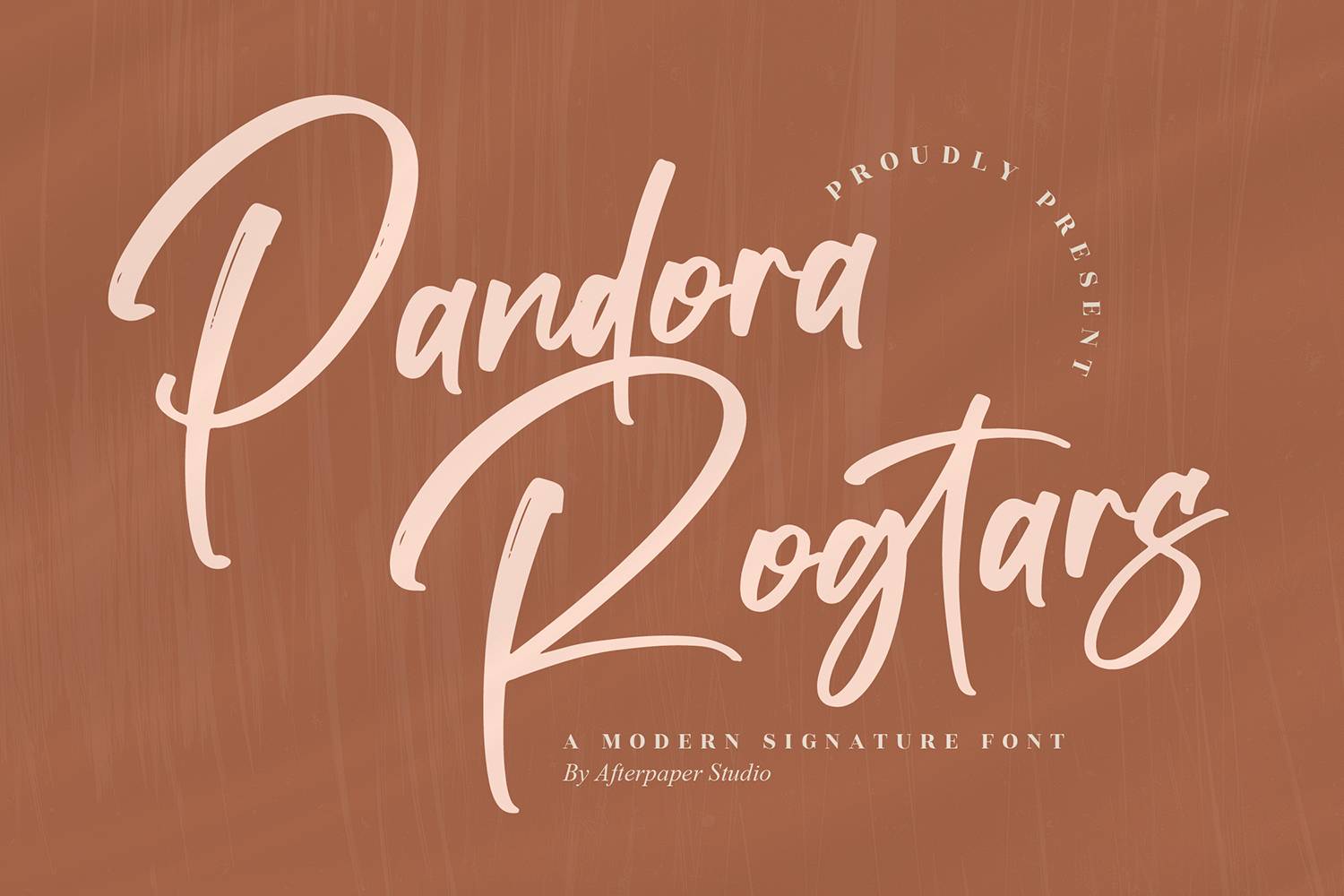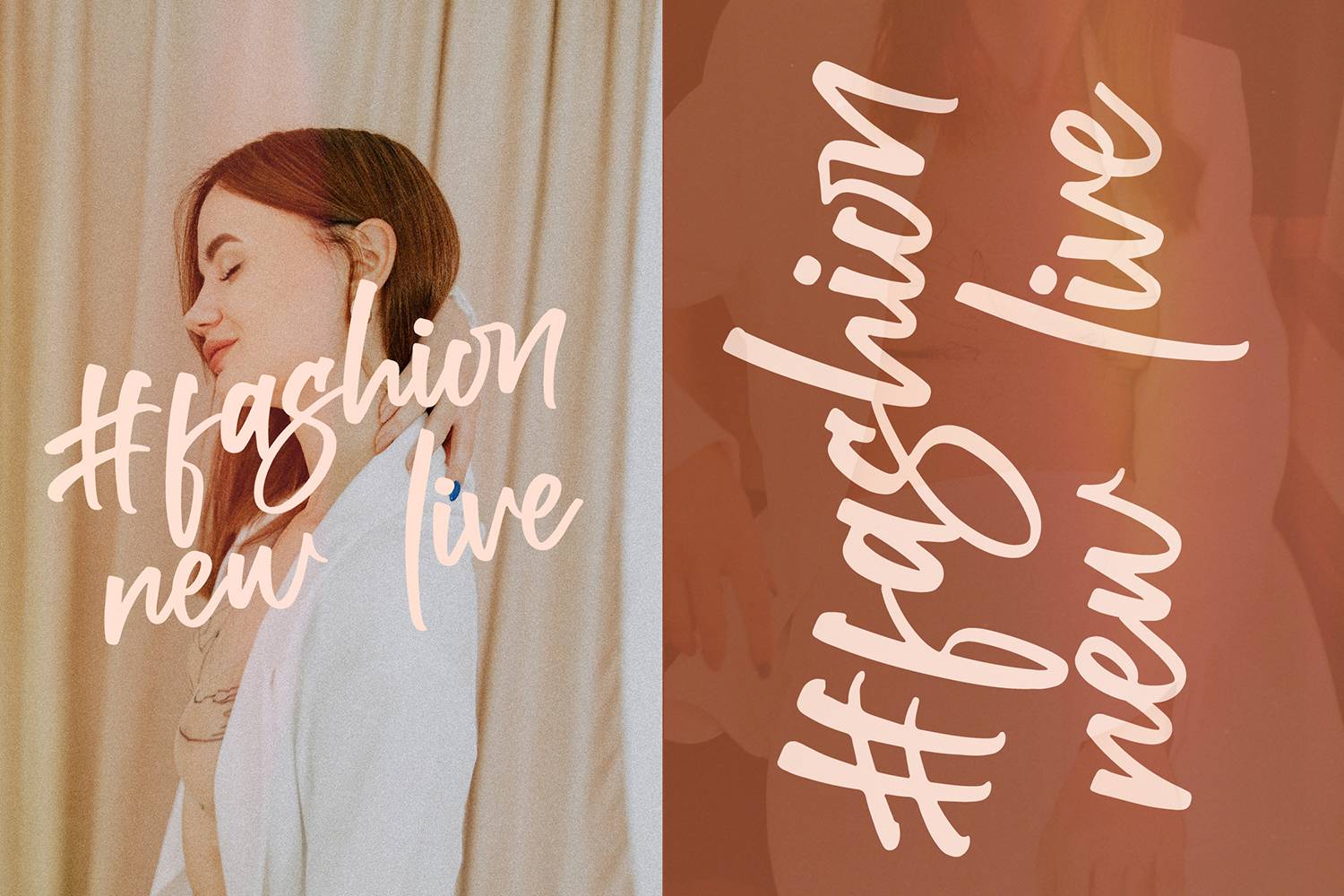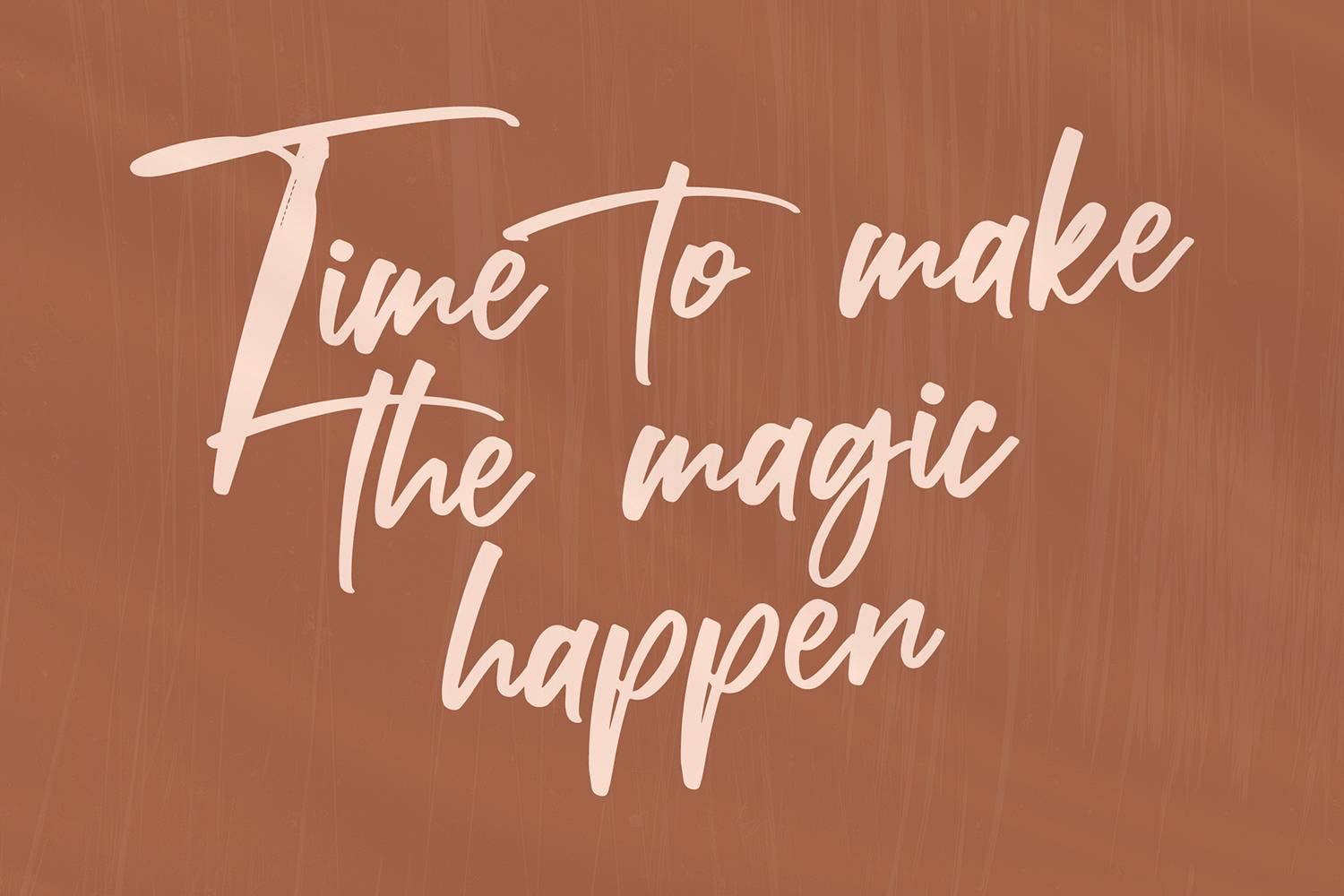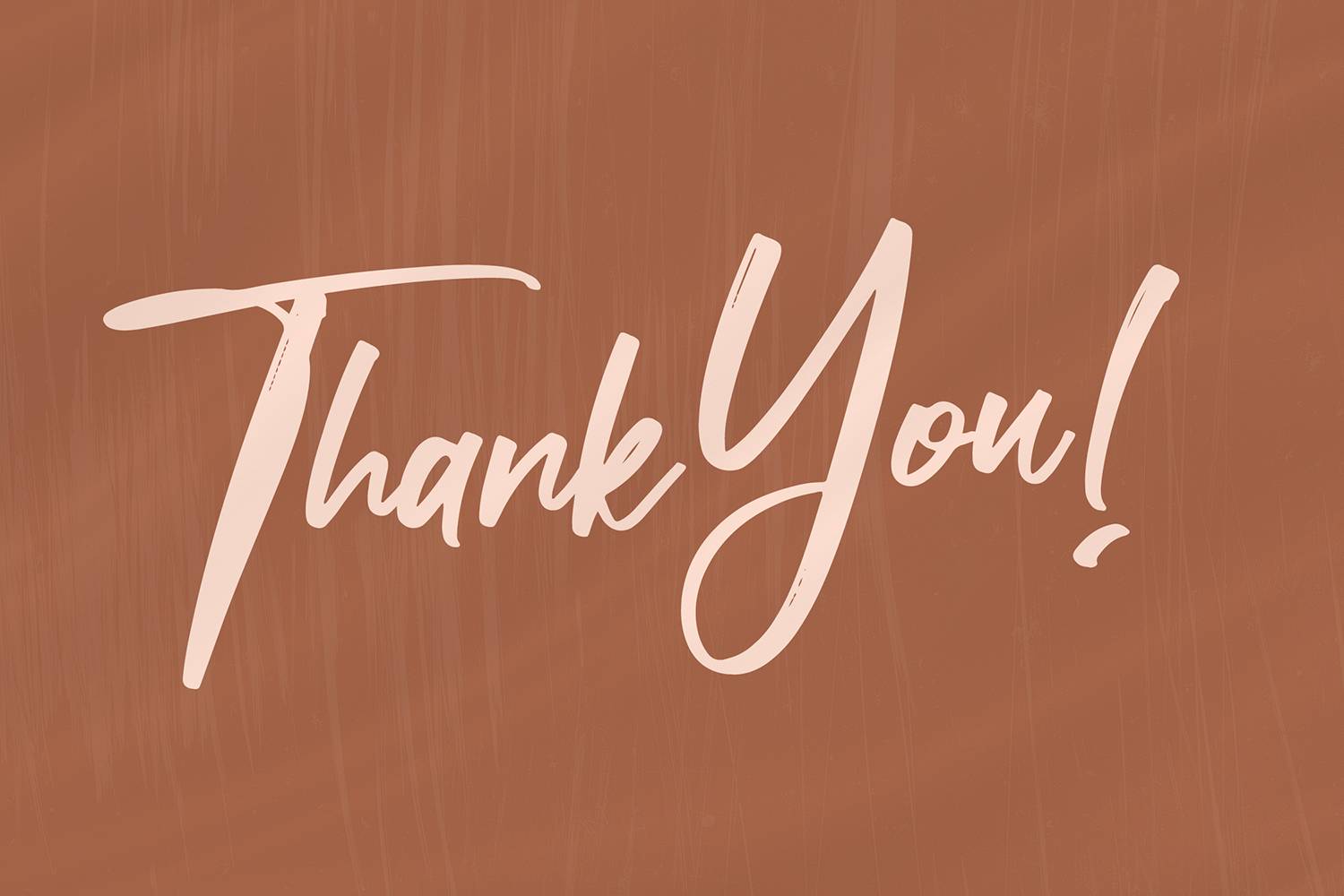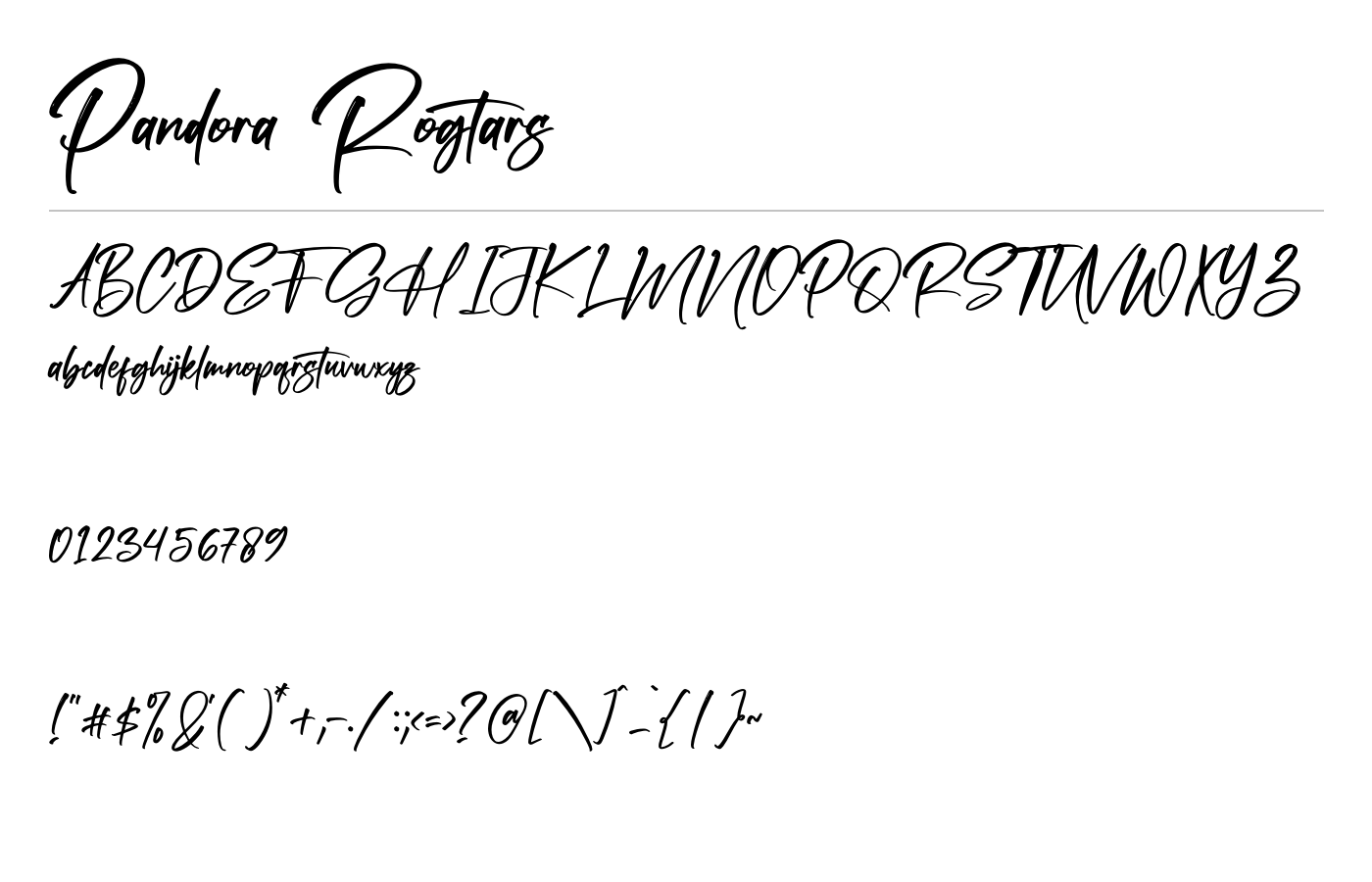
Pandora Rogtars is an elegant, modern script font with a lively, hand-lettered feel, featuring smooth, flowing strokes and a slightly casual yet refined style. Its high contrast and connected letterforms make it perfect for stylish branding, invitations, and expressive headlines that need a personal, artistic touch. This font shines in creative projects where a graceful and approachable look is desired.
Pandora Rogtars Font
About Pandora Rogtars Font